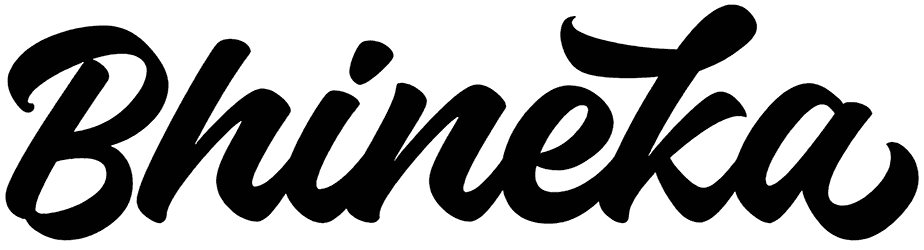
Bhineka Font
The main essence of handwritten texts is realism, and if you need to have such a vibe for your design, Bhineka can get you there. As a script font, you can have a smooth style for your words. Different projects, such as apparel, book covers, and many others the same are going to look captivating with this basketball font. Be brave and show off your creativity.
Designed by: HastaType